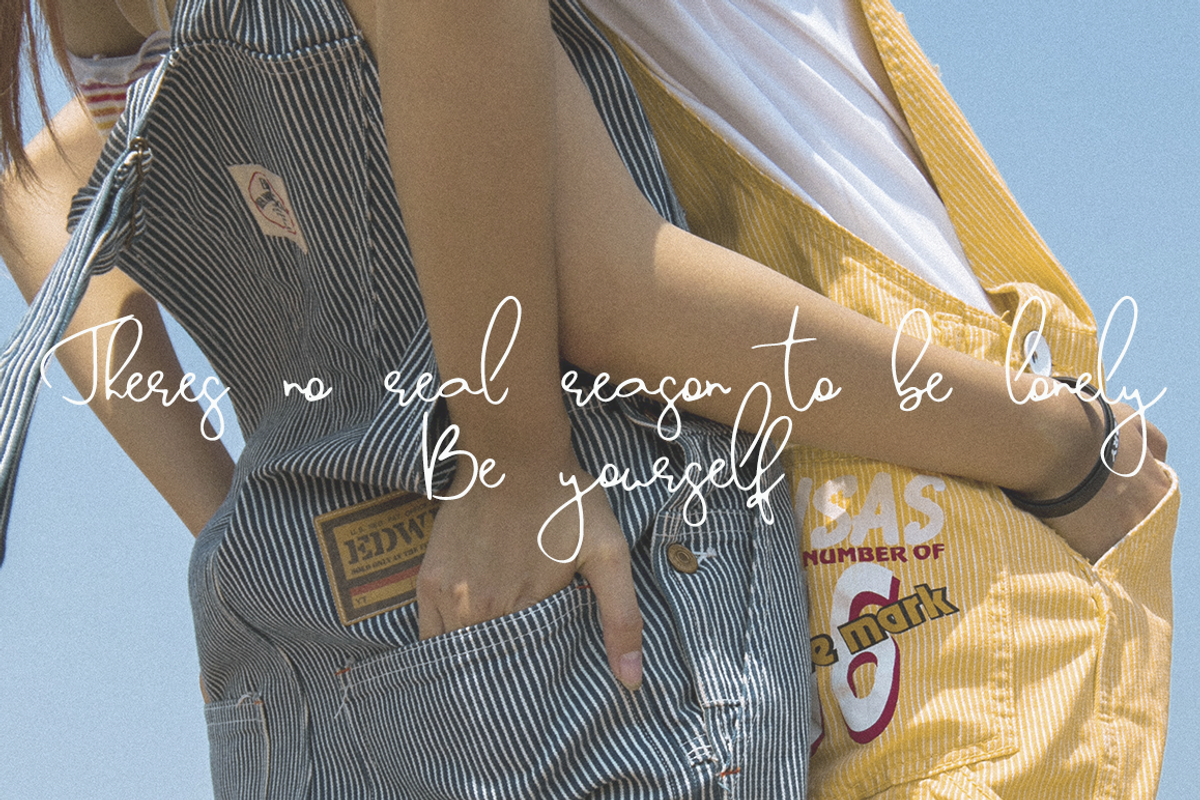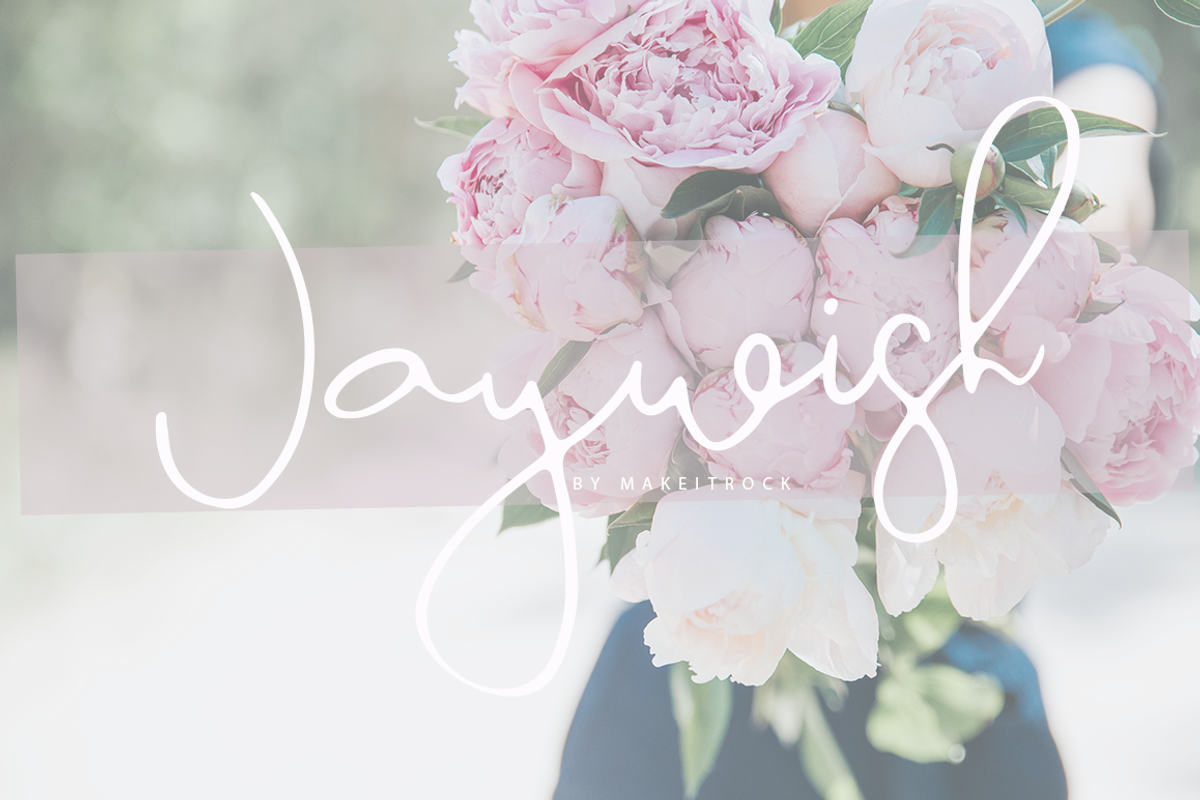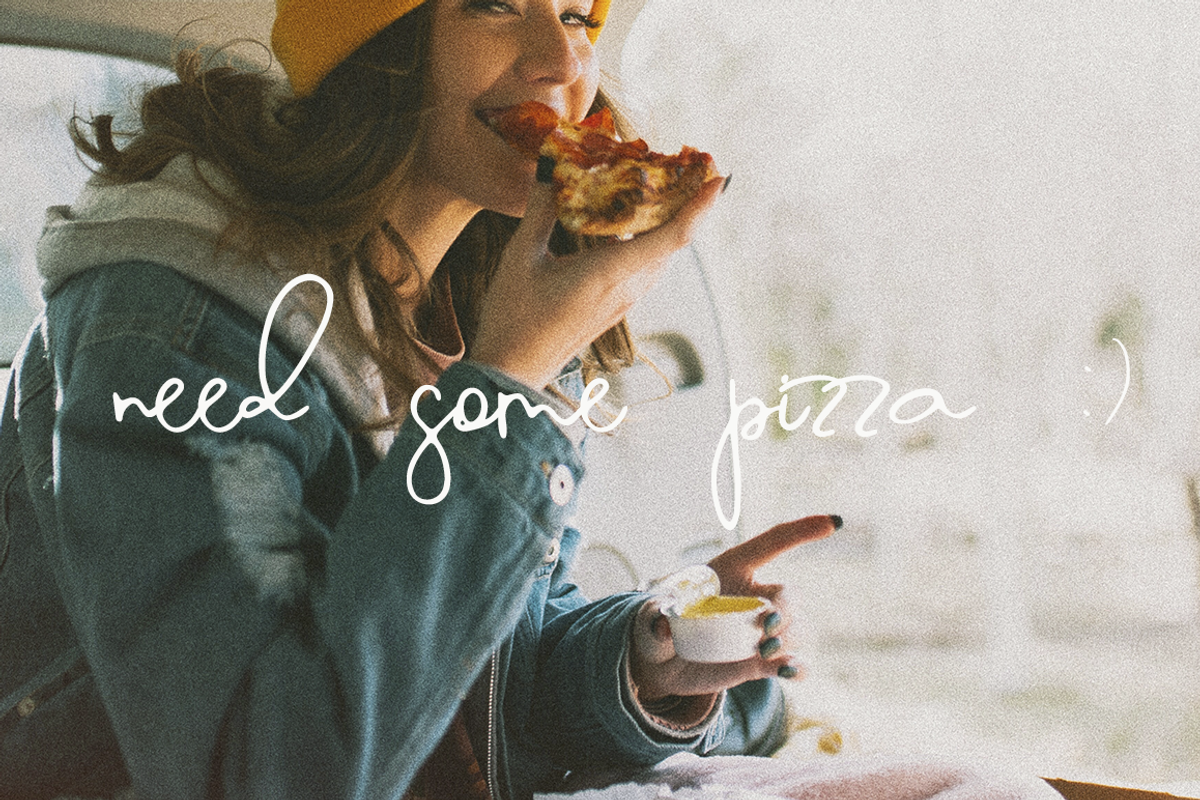
Jaywish
*A new classy calligraphy font.
This handwritten script has been attentively written, with gentle curves to produce a font thats completely distinctive and original. Perfect for adding a elegant and unique touch to your lettering projects and branding
Also with their help, you can create a Wedding lettering or beautiful frame for your home. Or just use for your small business, book covers, stationery, marketing, magazines and more.